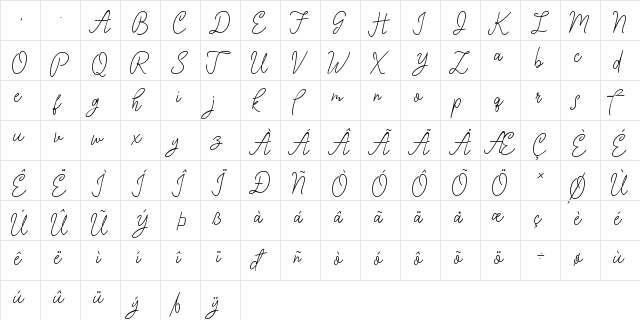
Ink Line Demo Regular
Design Context for Ink Line Demo Typeface
Ink Line Demo takes a measured approach to typography — its balanced proportions and neutral character make it a reliable workhorse for both digital and print work.